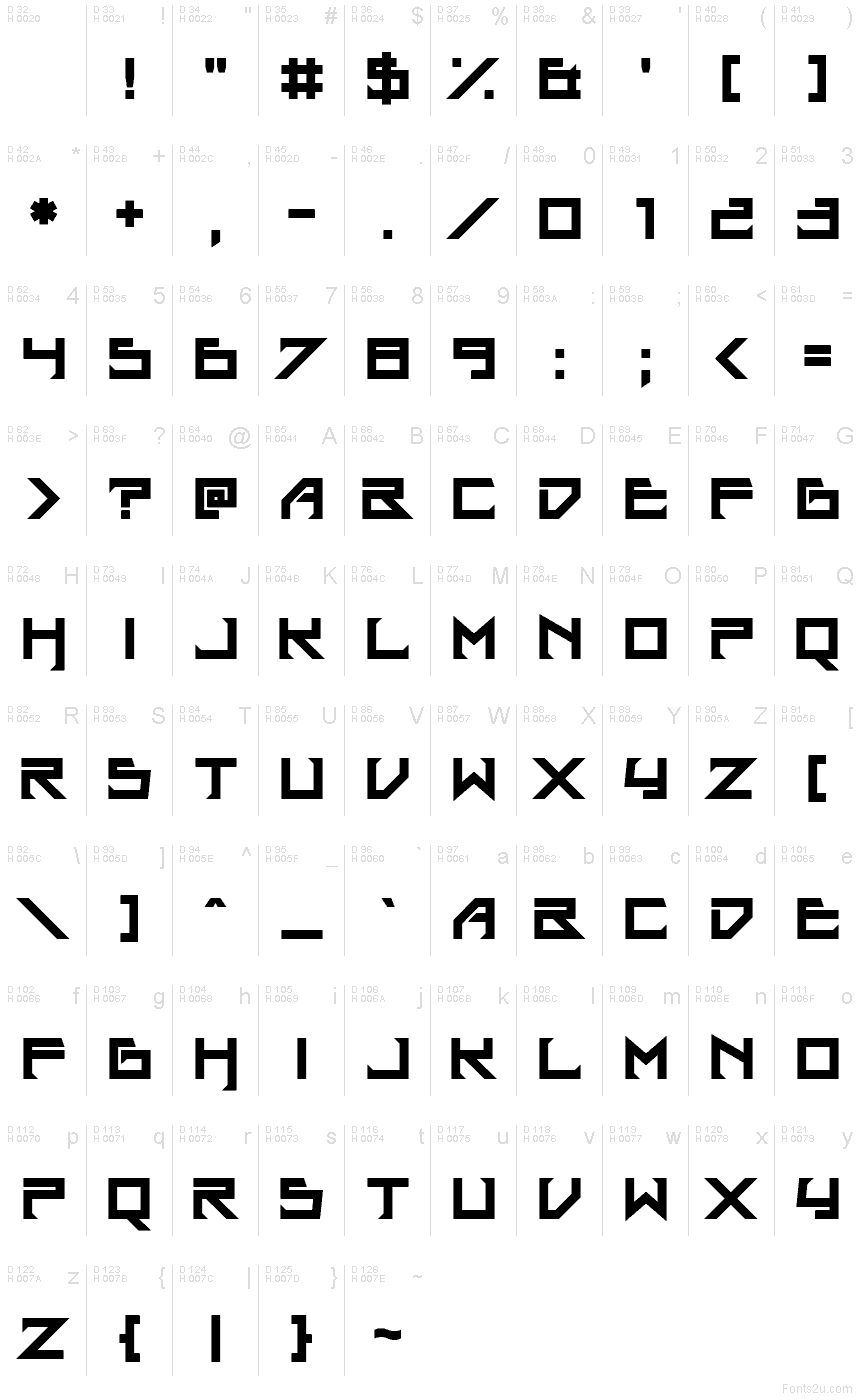
Cynosure Straight
Cynosure Straight font, created by Chequered Ink, is an expanded techno display free font. Inspired with a high-tech style, this font appears futuristic that can be explained through the geometric and angular design of each character. This is a modernist font that falls within the immediate category giving it a range of professional and personal use possibilities.
Use this typeface in futuristic websites and applications, book covers, animated game designs, movie teasers and trailers. Additional ideas include posters and arts dedicated for an audience interested in comic books about aliens or similar characters that live in a different galaxy.